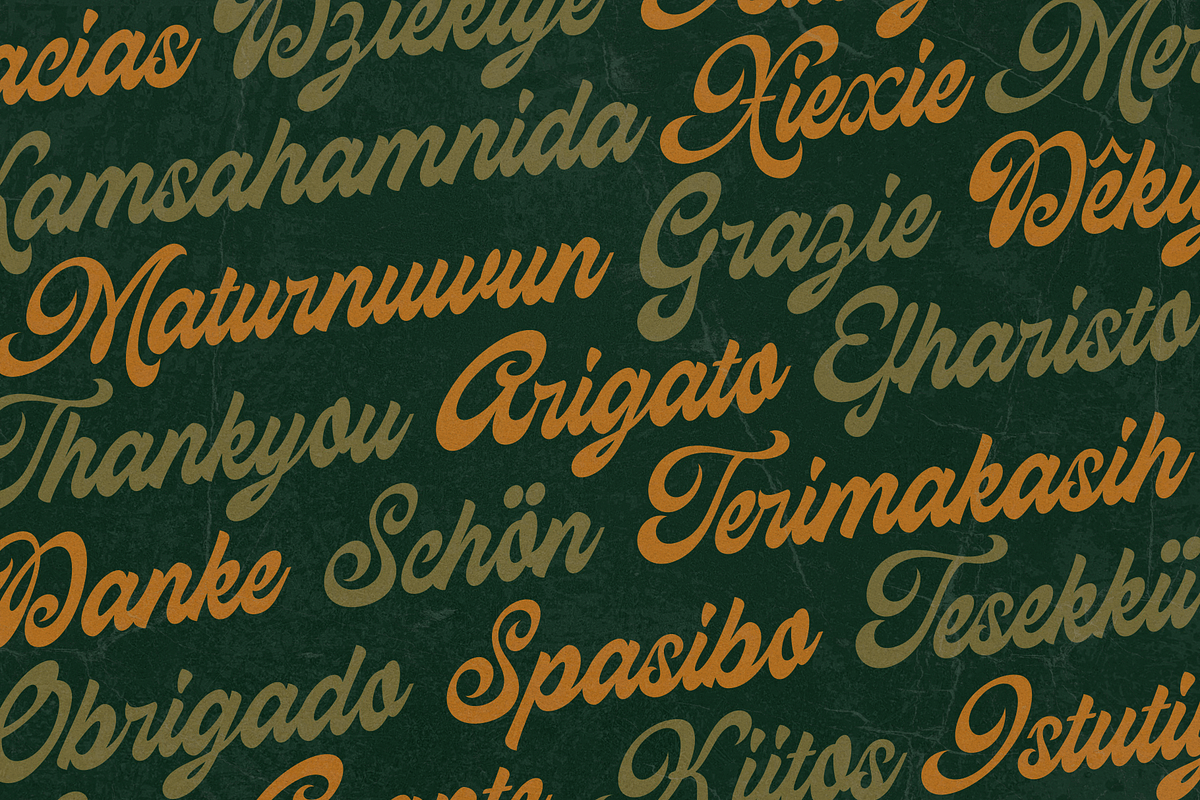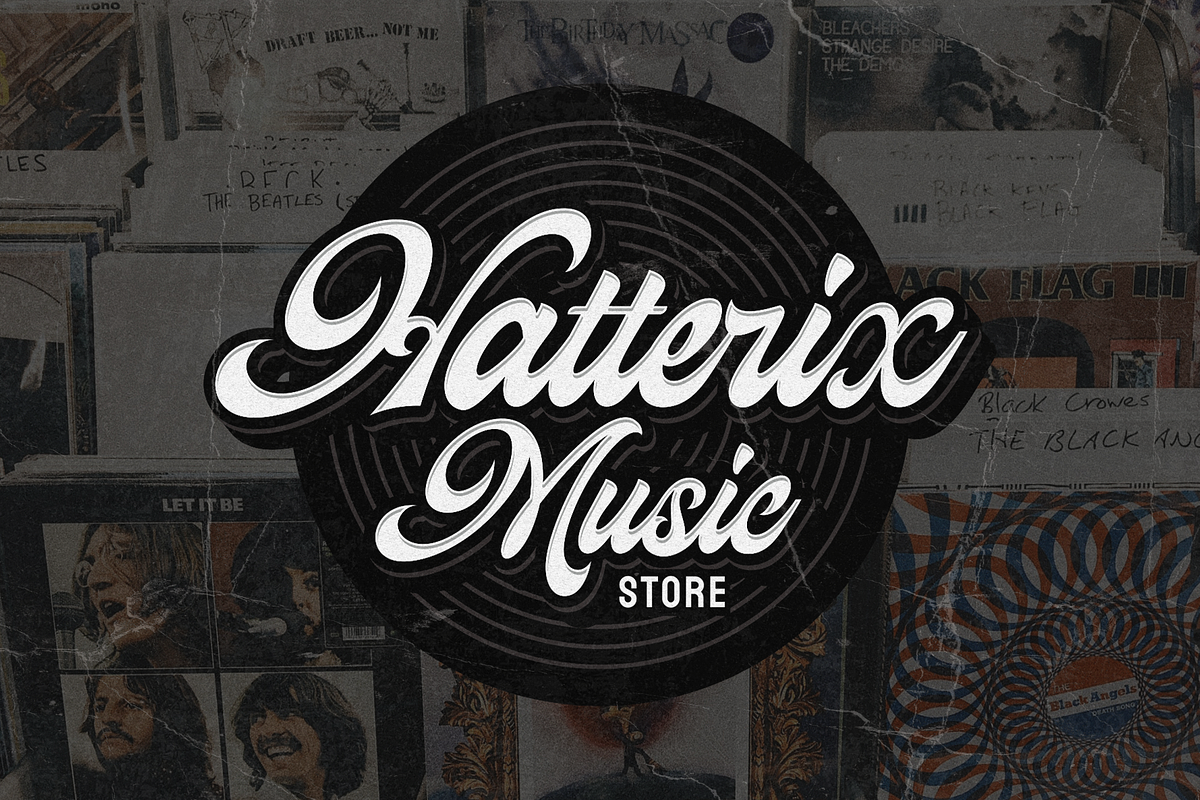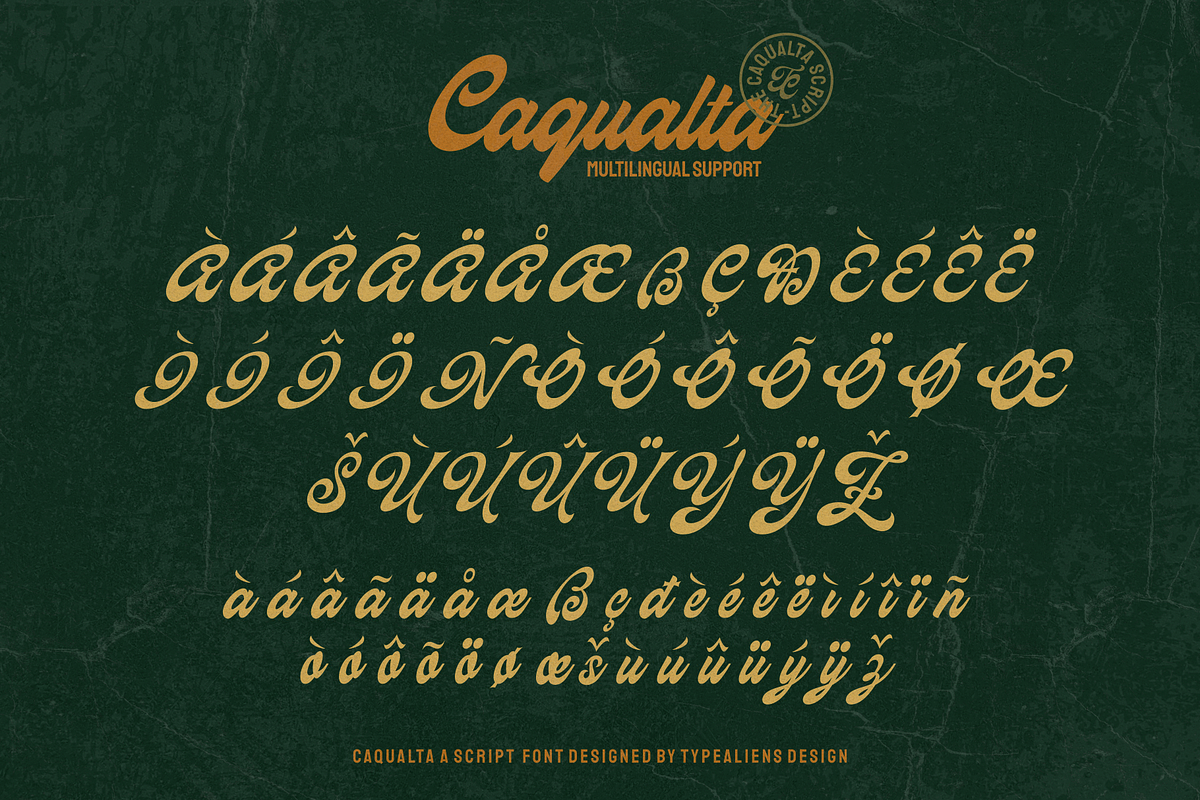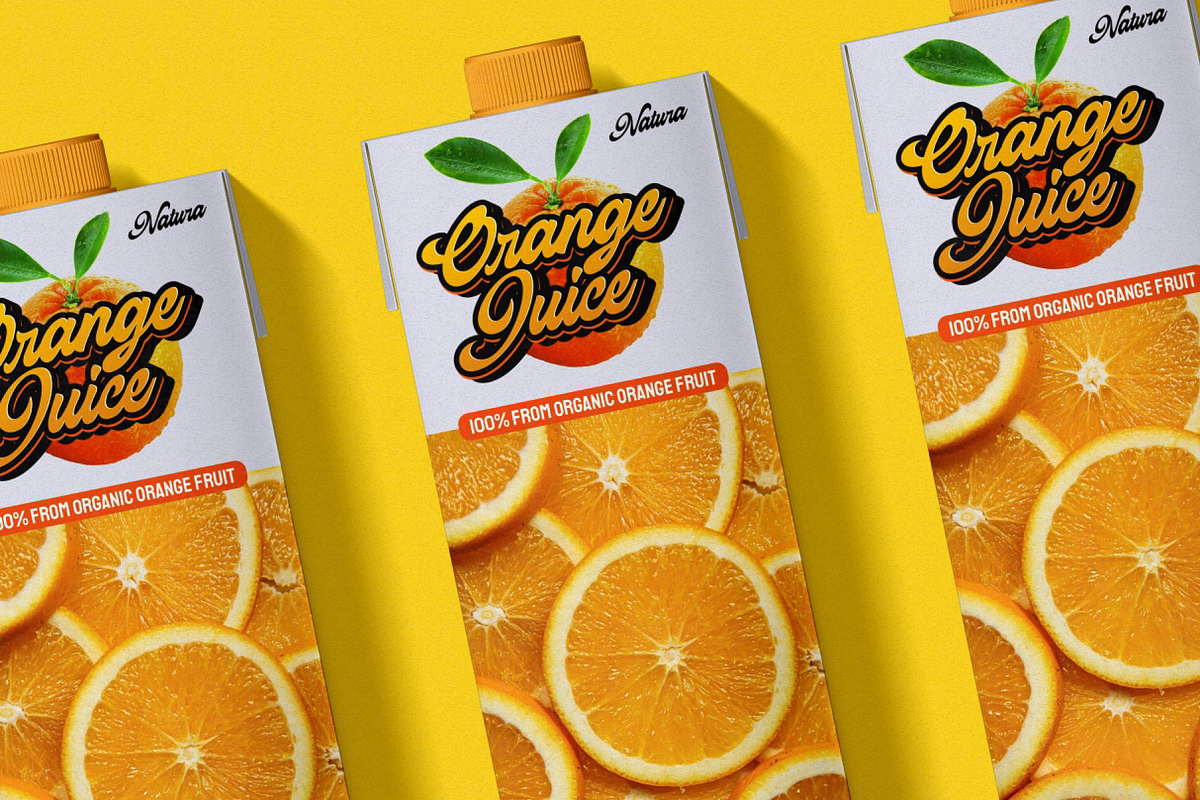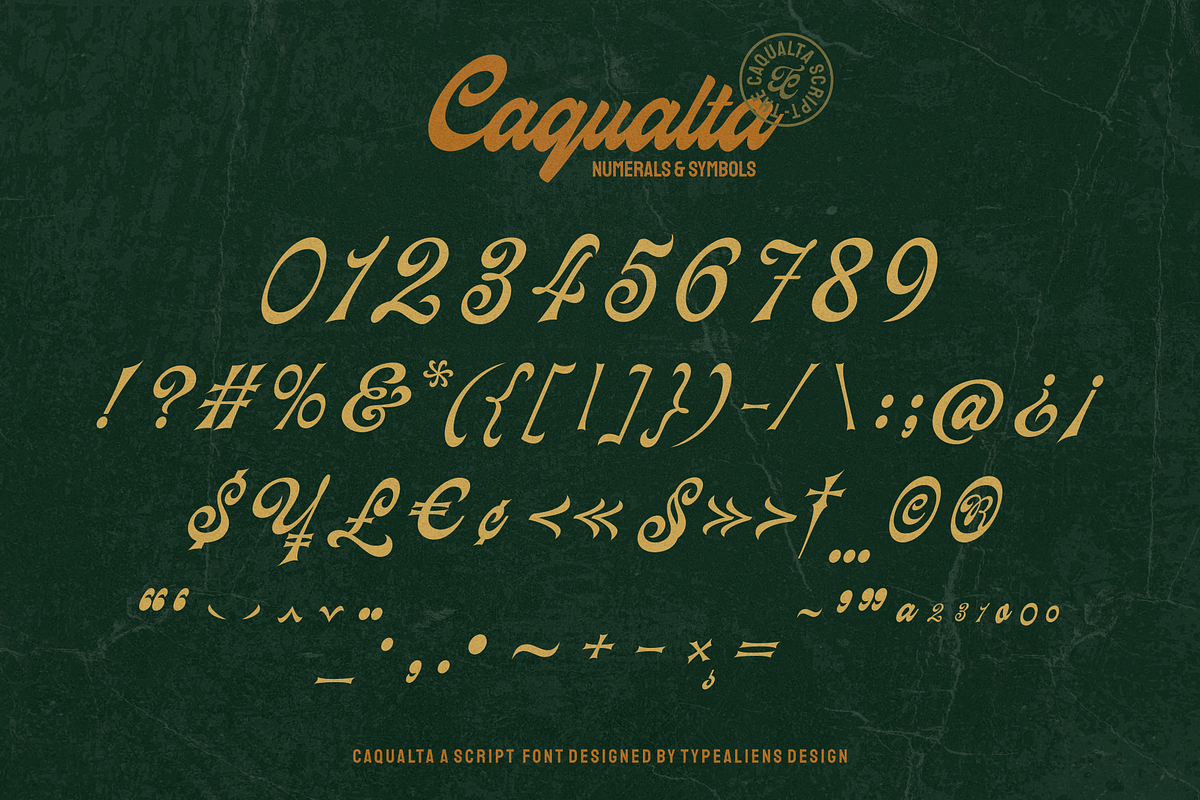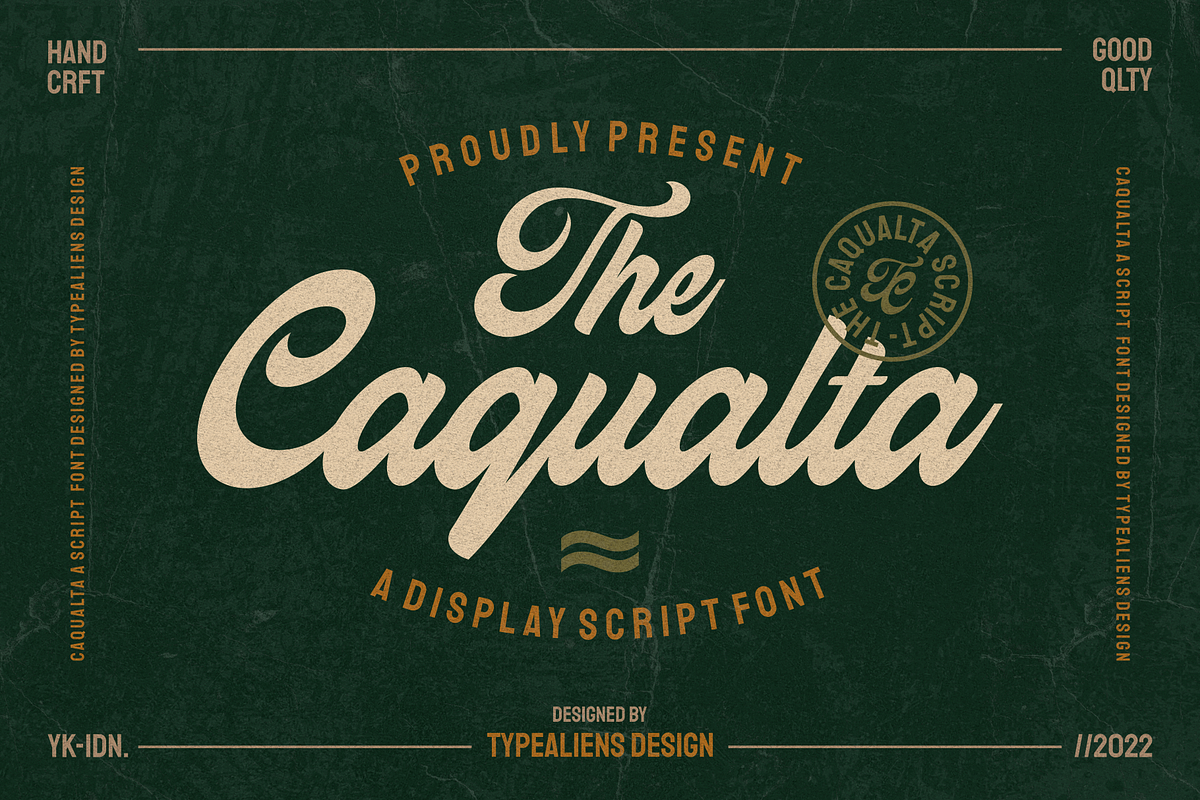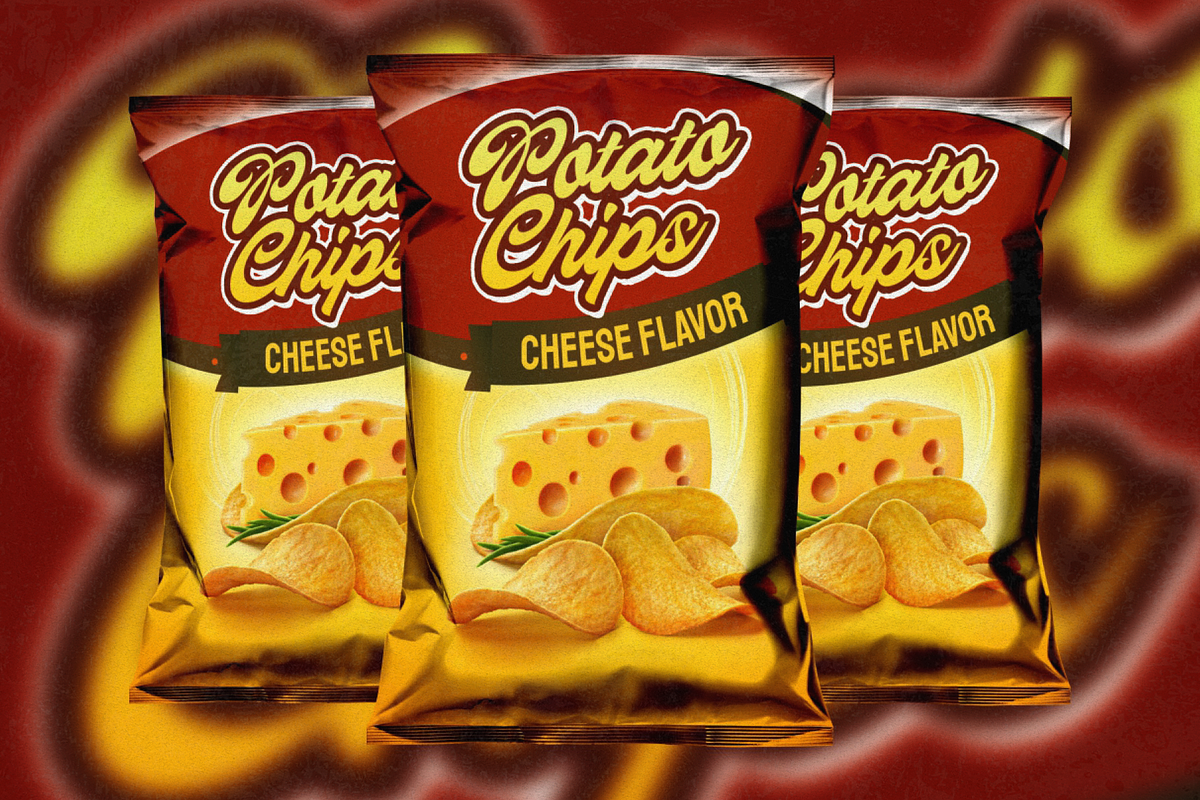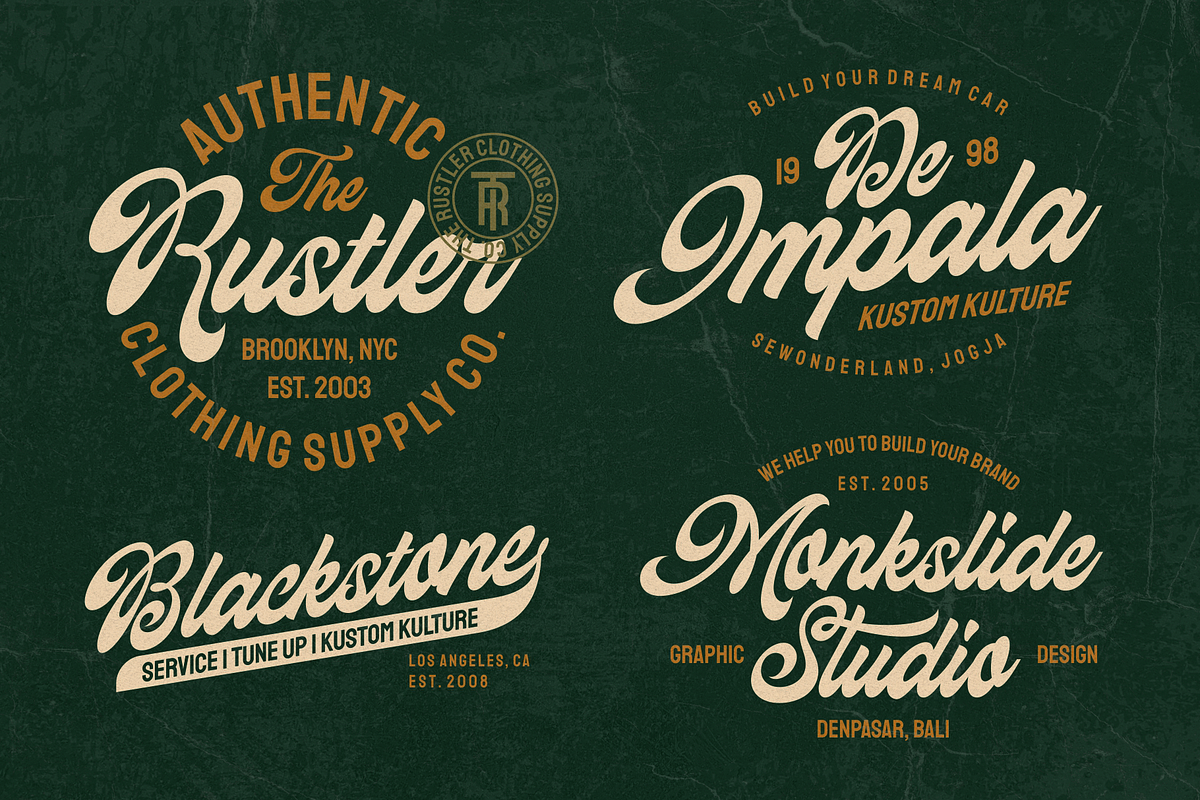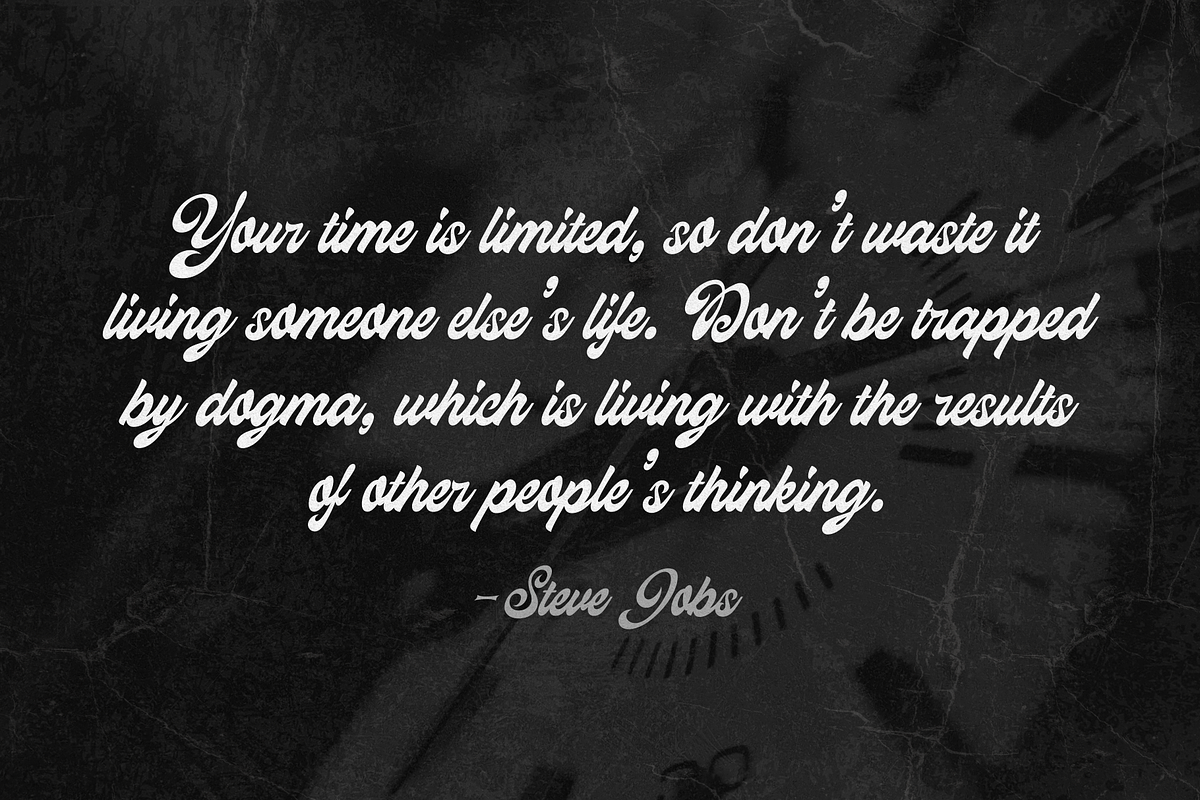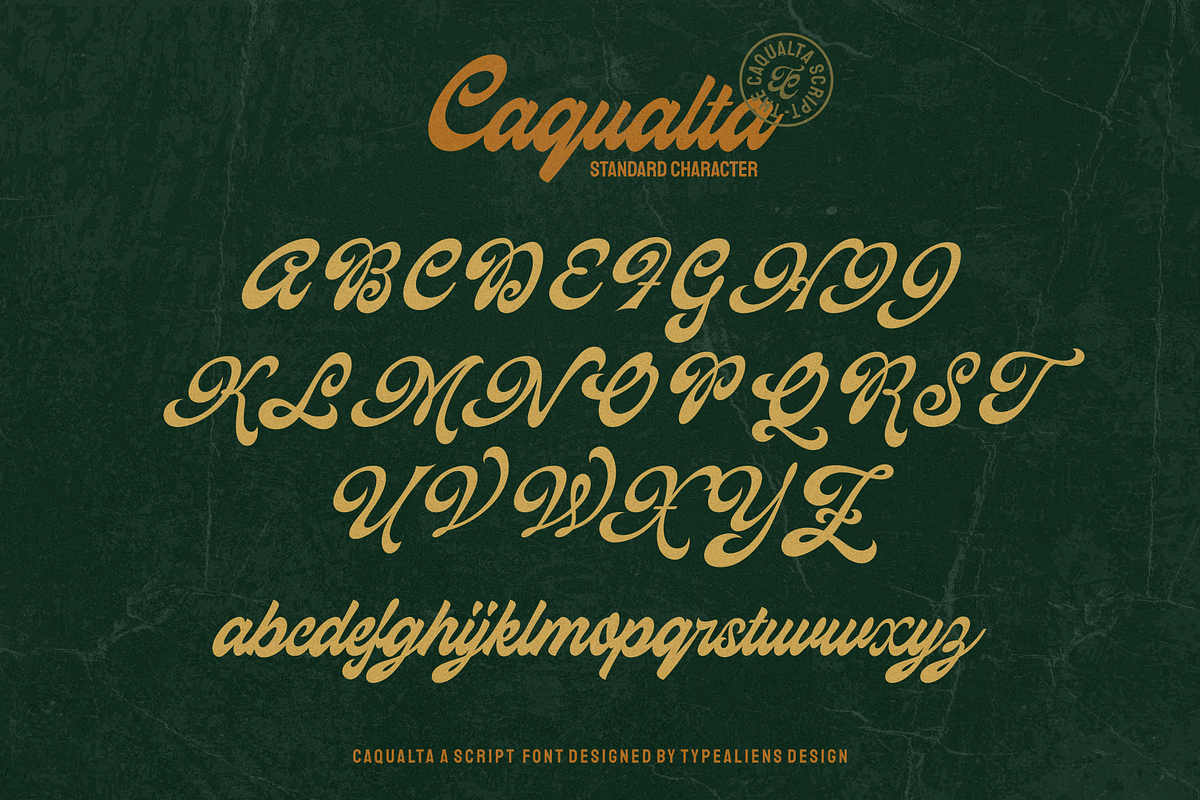
Caqualta Script for Food & Branding
We proudly present our newest script font, Caqualta. This unique script features a basic, curvy, and slightly stubby style. This modern script font actually has a few characteristics that lend themselves well to a vintage look.
It's perfect for branding snack products or fast food packaging. Furthermore, with classic ornamentation and classic colors, this font is also perfect for designs that want a vintage look.